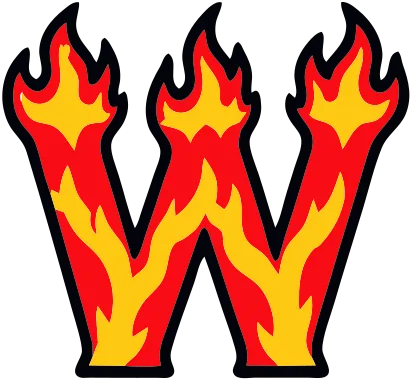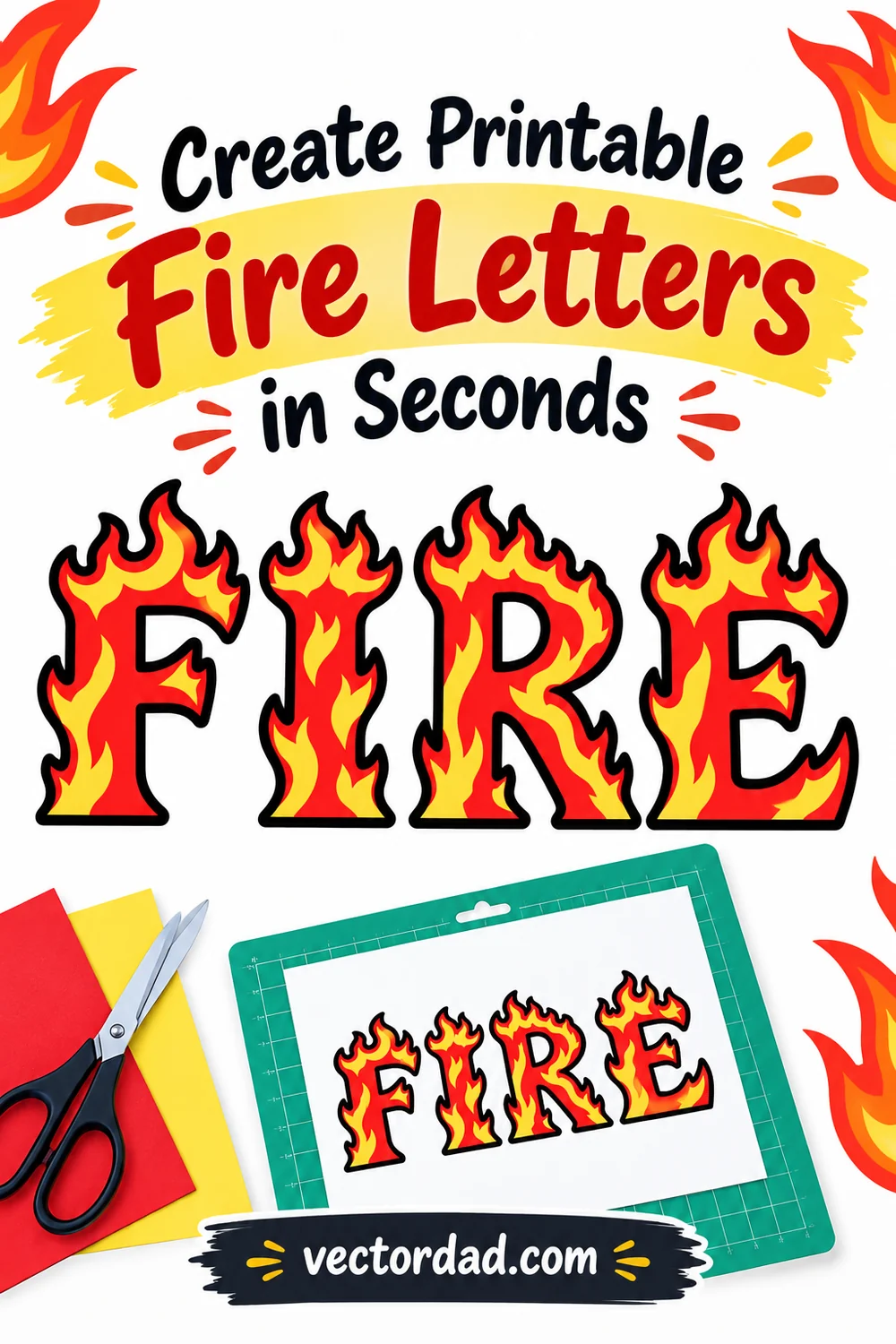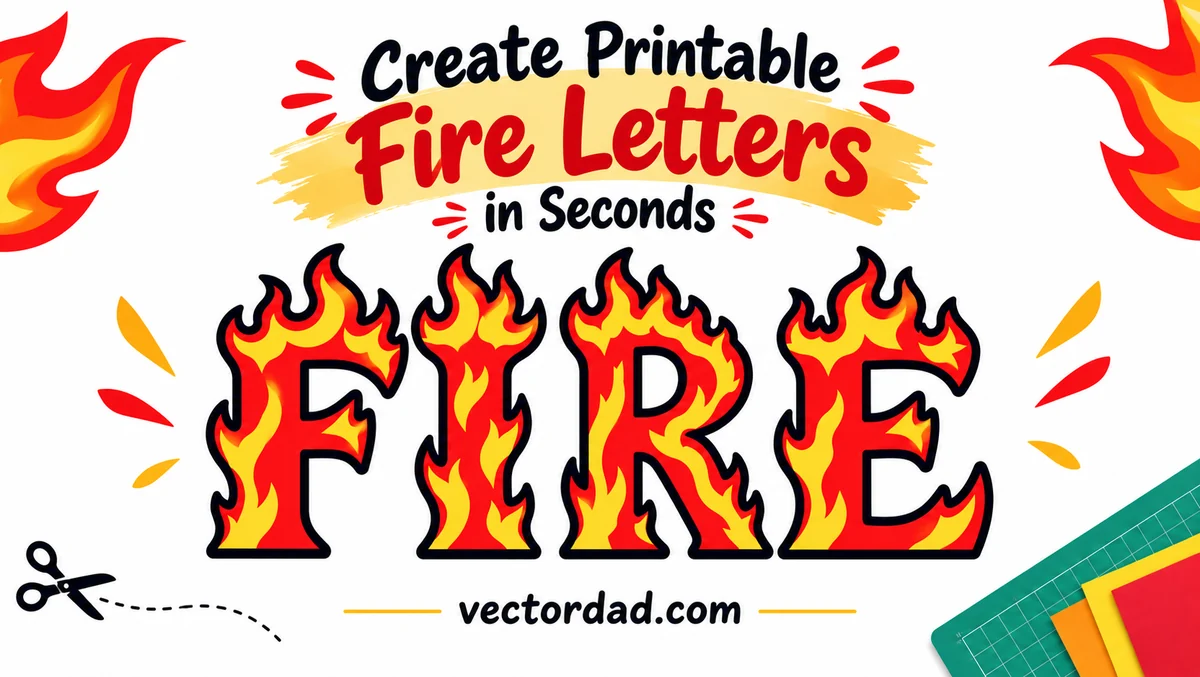
Fire Letters
Printable Fire Letters (A-Z): Free Flaming Alphabet Templates
Free printable fire letters with hand-drawn cartoon flames wrapping every letter and number. Type a word in the maker below and it sets itself in the full flaming alphabet, then download it as an SVG for Cricut and Silhouette or as a transparent PNG for posters, shirts and party banners. Every letter A to Z and number 0 to 9 is also below as a single printable template.
Printable fire letters spelling FIRE in a flaming red and yellow alphabet
Printable Fire Letters A-Z
Printable Fire Numbers 0-9
The numbers match the letters exactly, so ages, house numbers and years sit on the same baseline as the rest of your word.
How to make a word in fire letters
2. Set the size and spacing. Pull letter spacing below zero and the flames overlap into one continuous blaze; push it up and each letter stands alone.
3. Change the colours if you want cooler flames – the letter, the outline and the flame are each on their own control.
What to make with them
Fire letters suit anything that wants heat behind it: birthday banners, gaming and esports graphics, chilli cook-off signs, fire station and truck themes, hot sauce labels, dragon parties and sports team boards. The flames print beautifully at any size, though they are best cut at six inches or taller – below that the thinnest flame tips get delicate to weed in vinyl.
Printable fire letters template cut out with scissors on a green craft mat